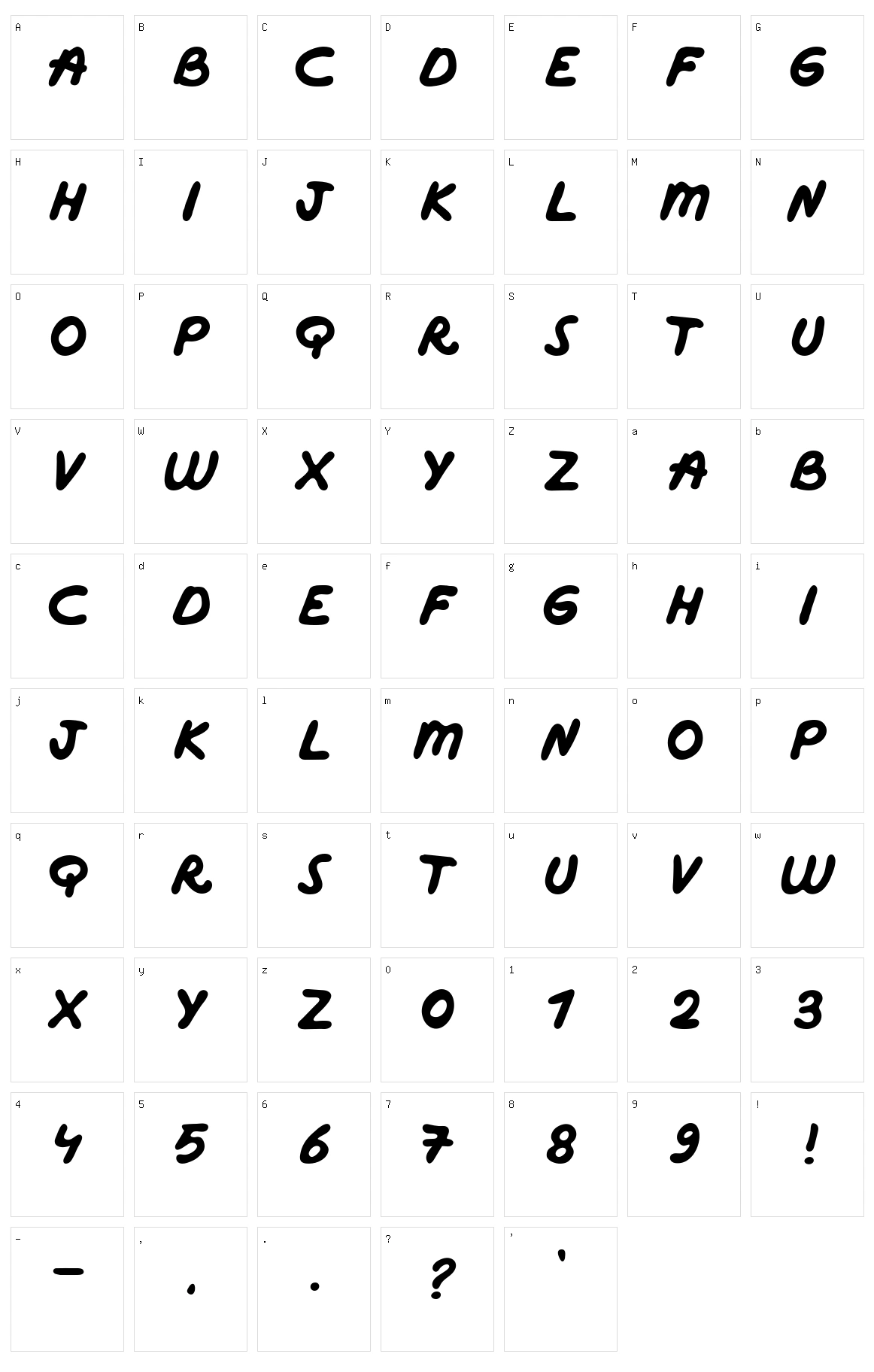
The free font Marker Font is carefully designed by Krafti Lab, showcasing a thoughtful balance of creativity and usability and falls under the Script font style. When you download the ZIP file, it contains only 14.24 KB of font files, making it lightweight and quick to download. Please review the license details below to understand permitted usage and distribution rights. If license information is not available, we recommend using this font for personal projects only or contacting the author directly for commercial usage permissions.